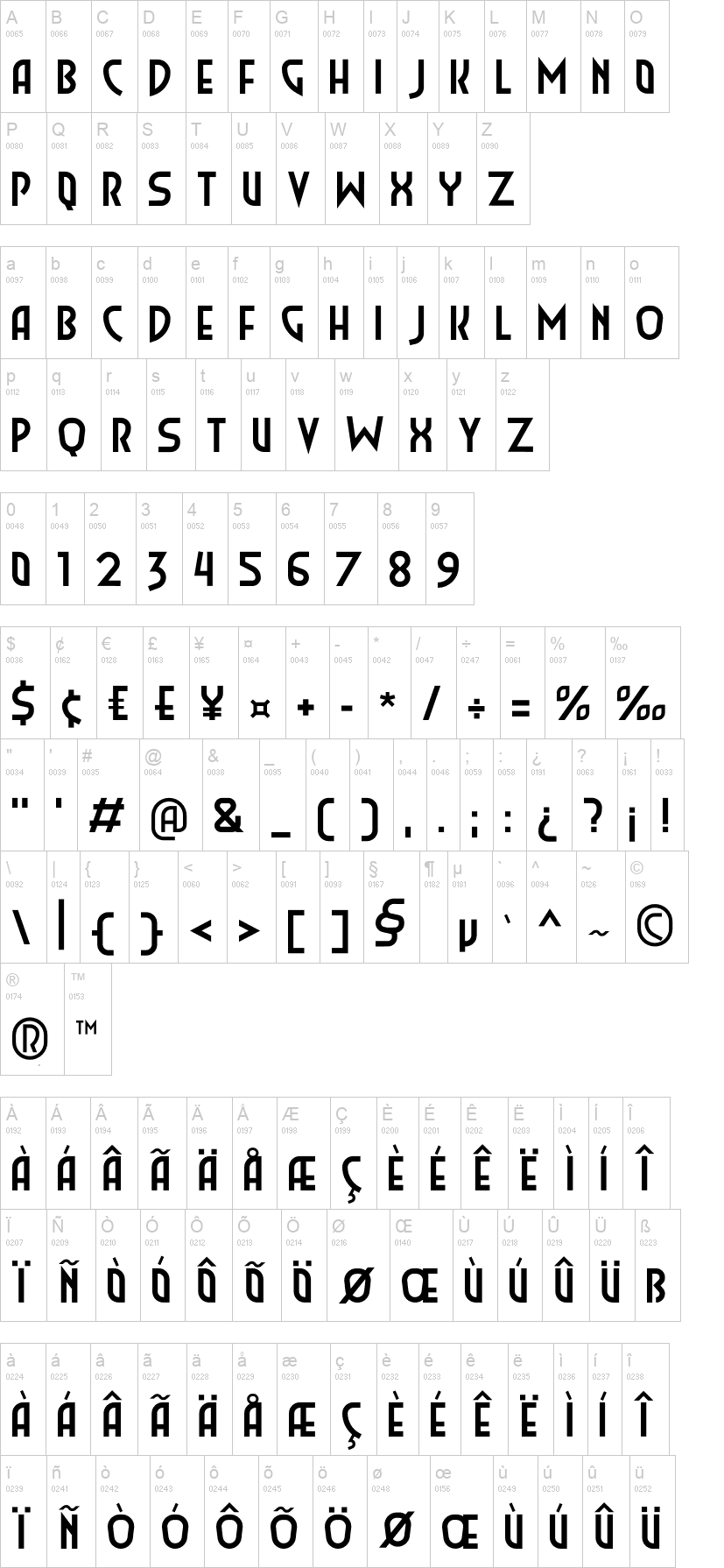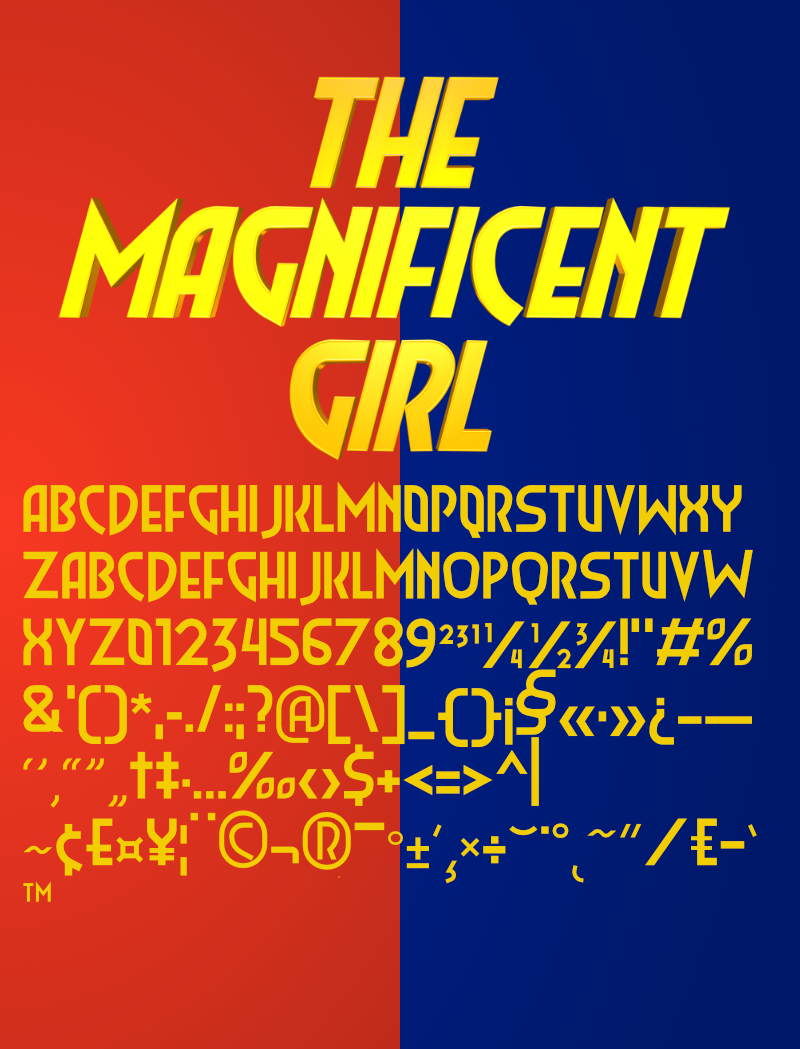
The Magnificent Girl LightItl.otfThe Magnificent Girl Regular.otfThe Magnificent Girl RegItalic.otfThe Magnificent Girl Bold.otfThe Magnificent Girl Bold Italic.otfNote of the authorWith 8 fonts in its total, 3 a weight family and 3 deriving an italic version of this family, two of the eight do not suit the other 6 for not being the same category but they belong to the same family. The six categorizes in art deco style, and the other two in the abstract and handwritten.